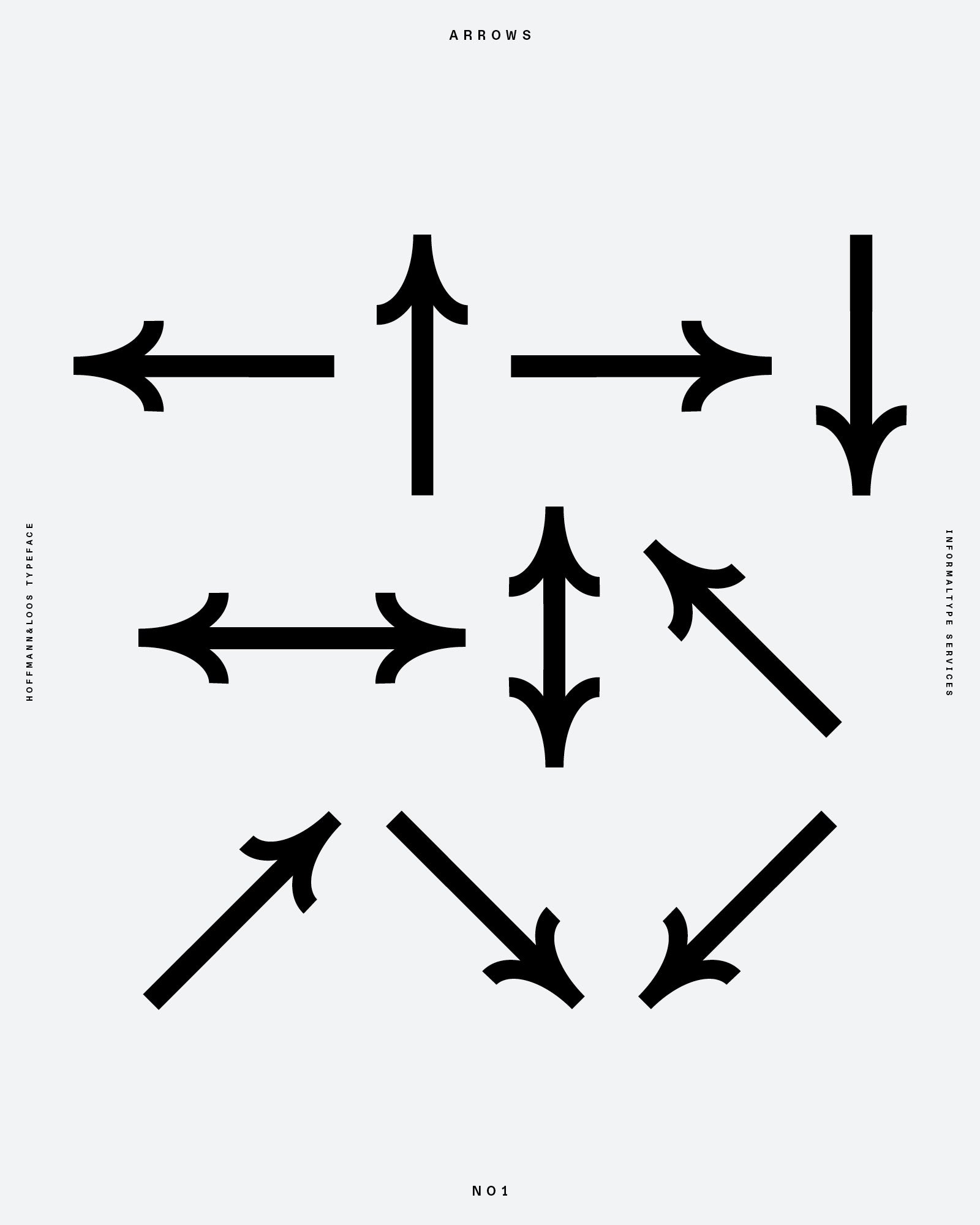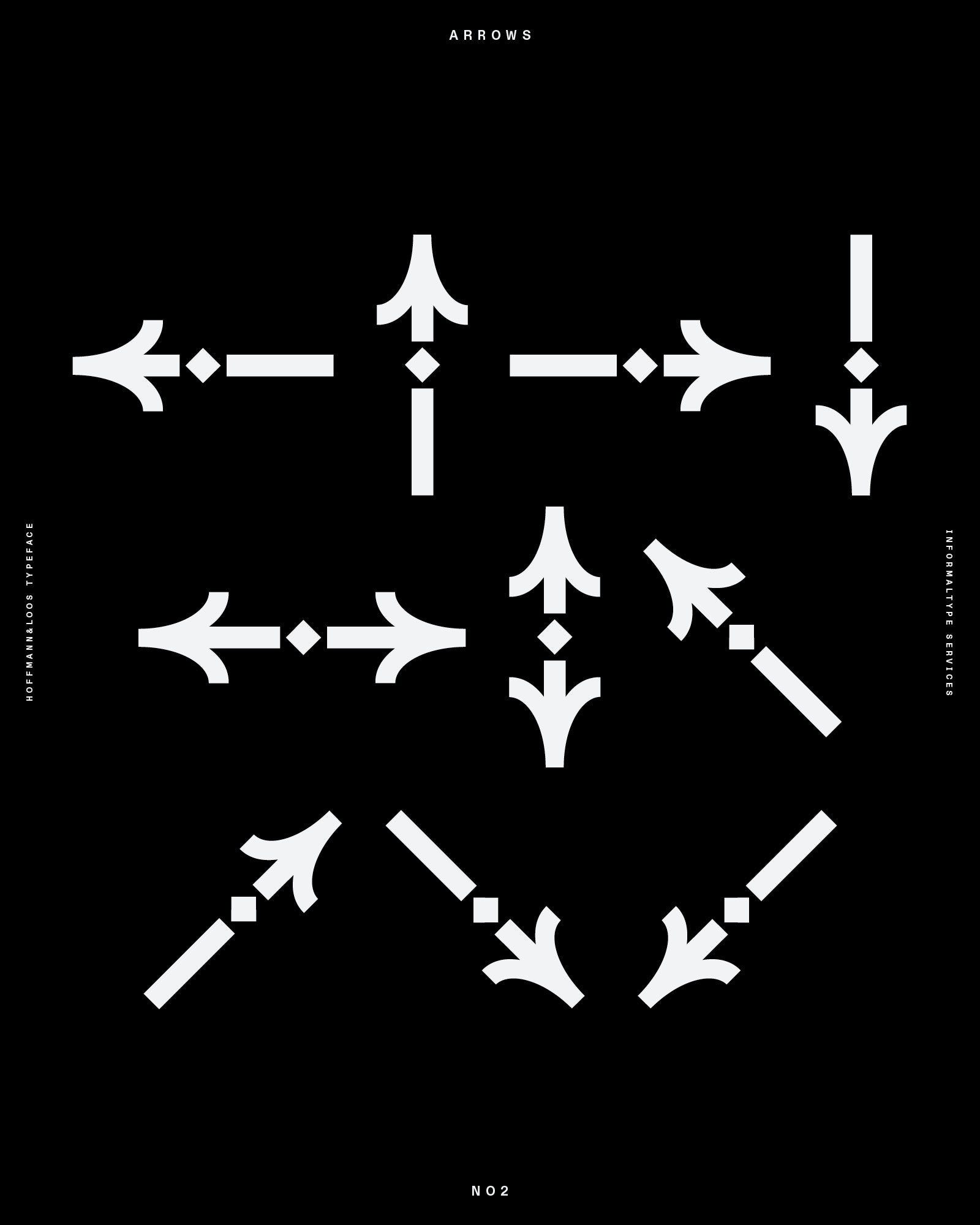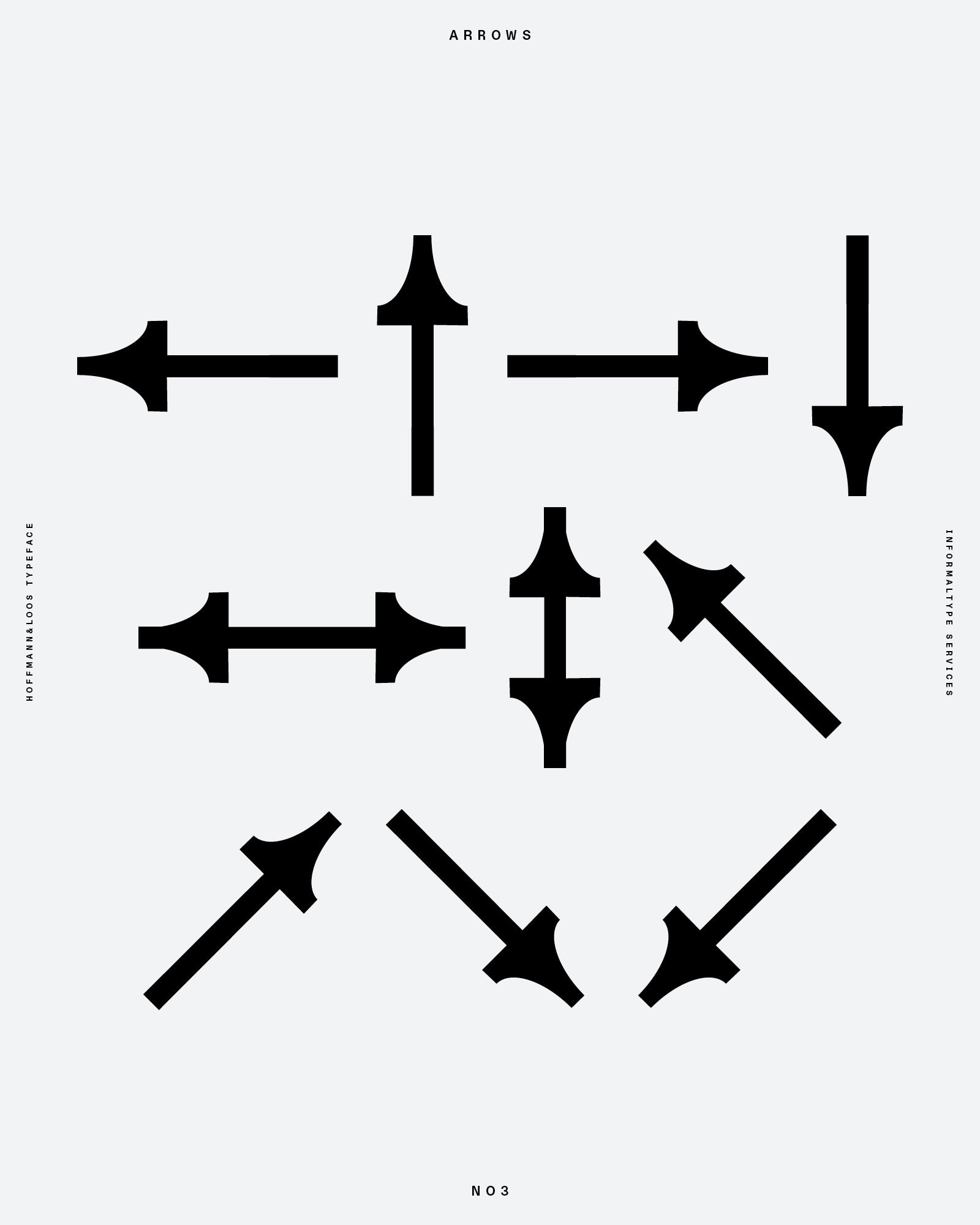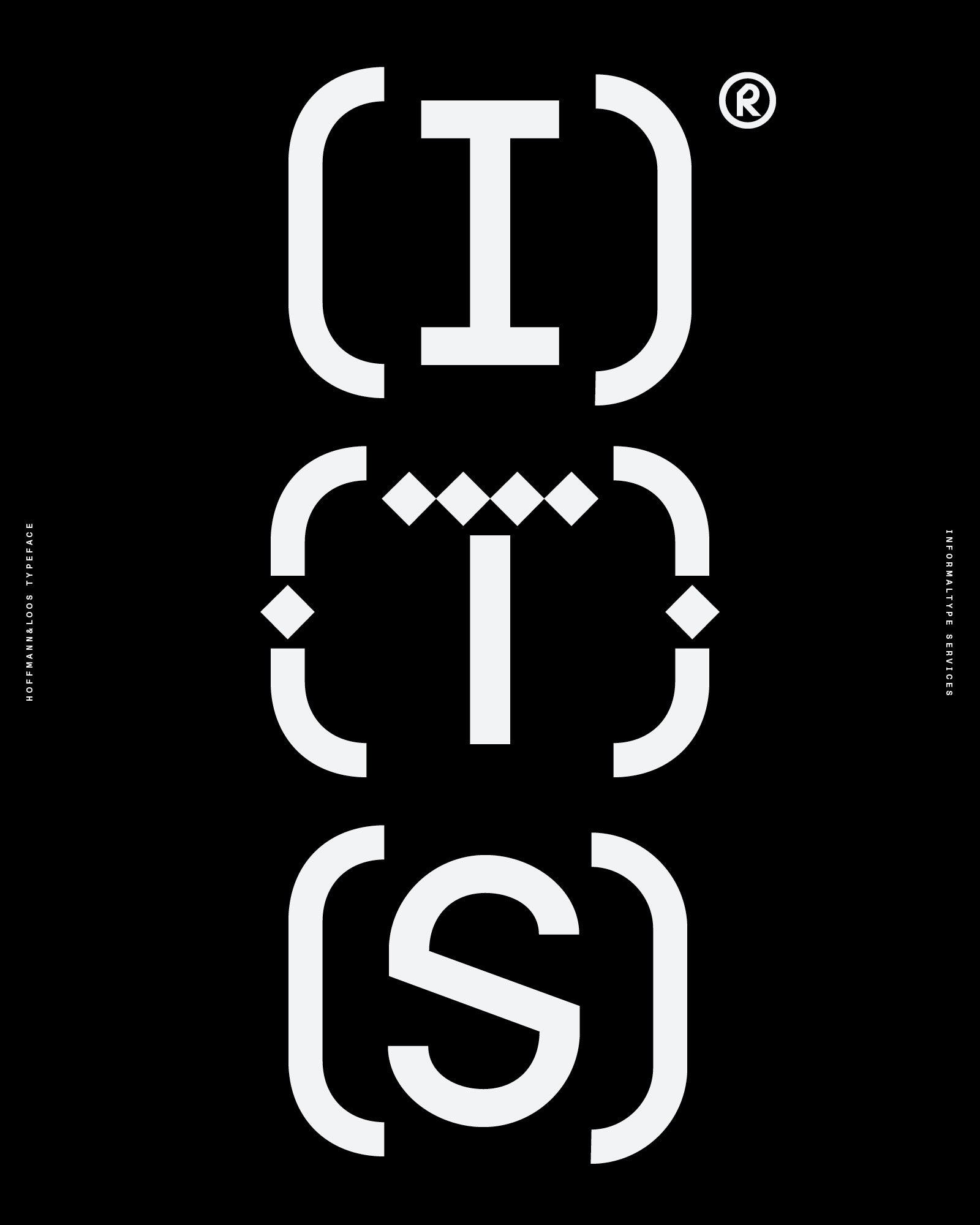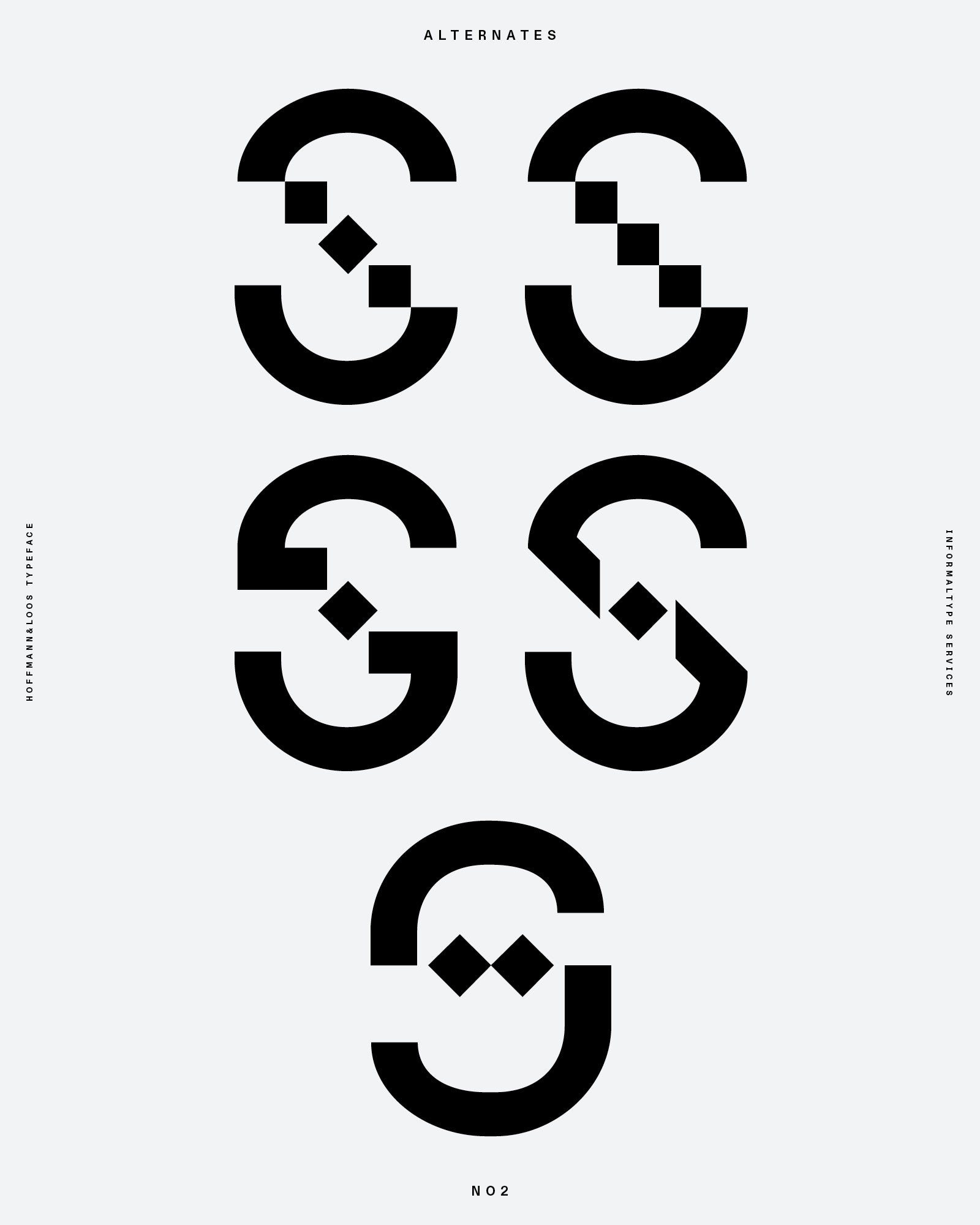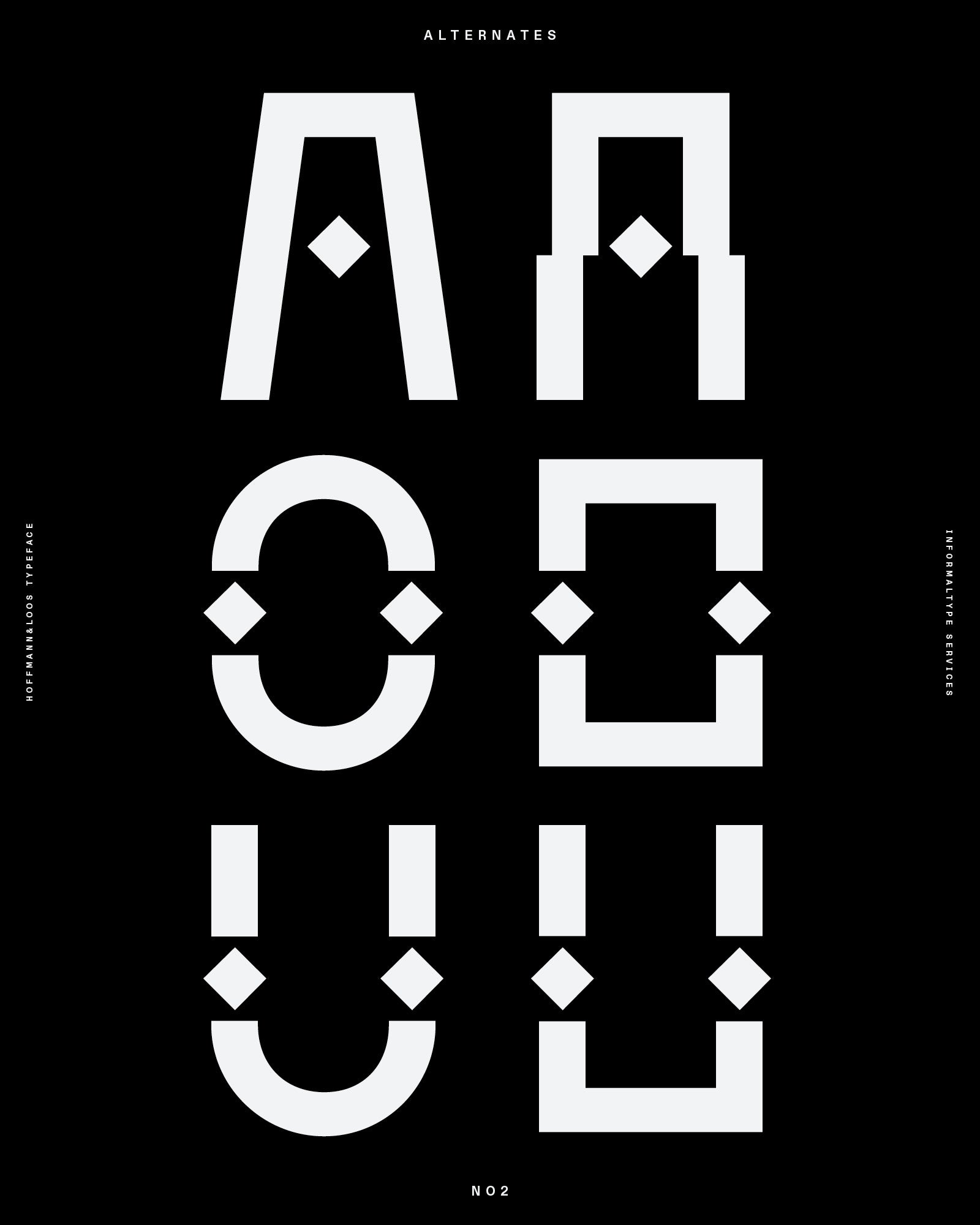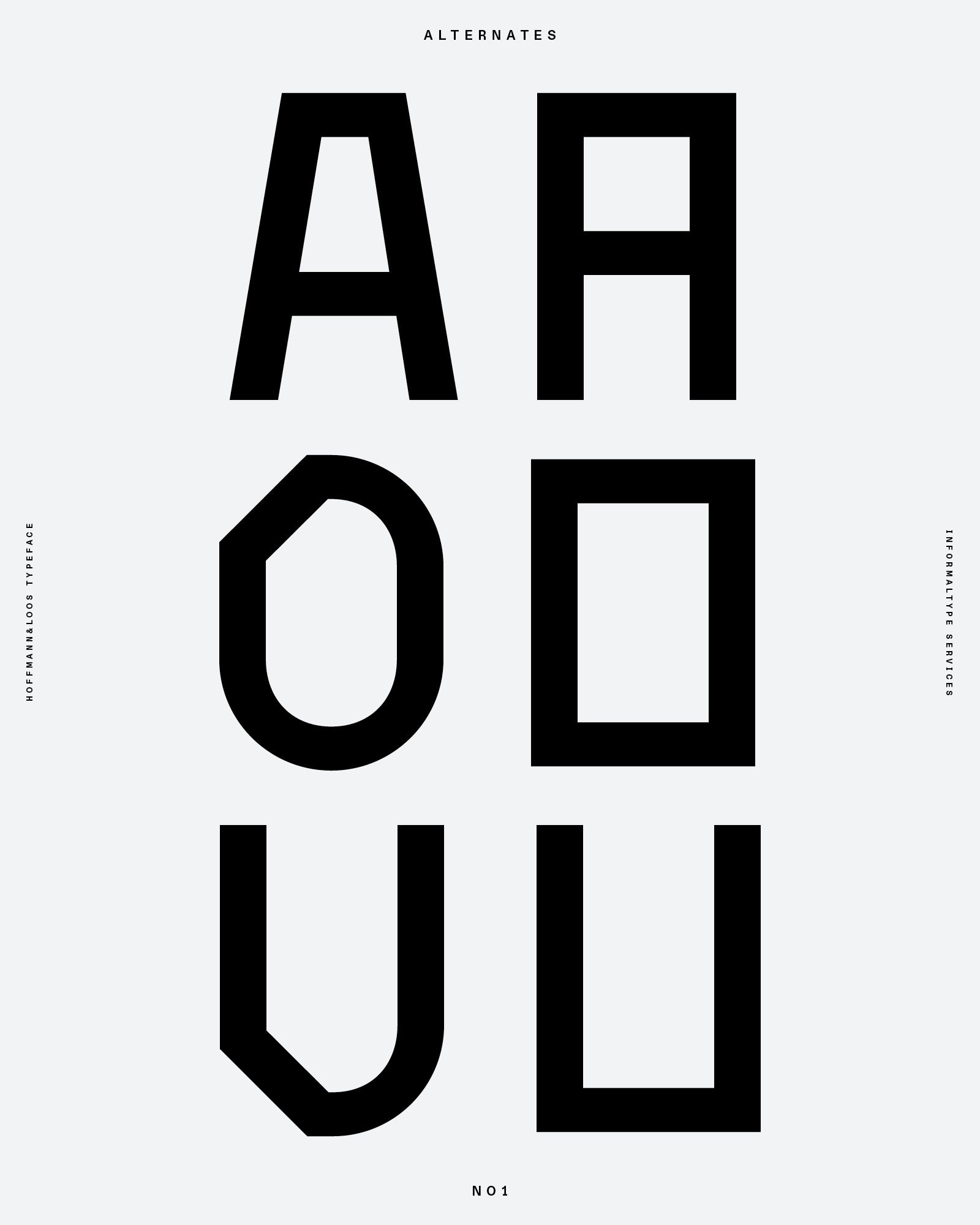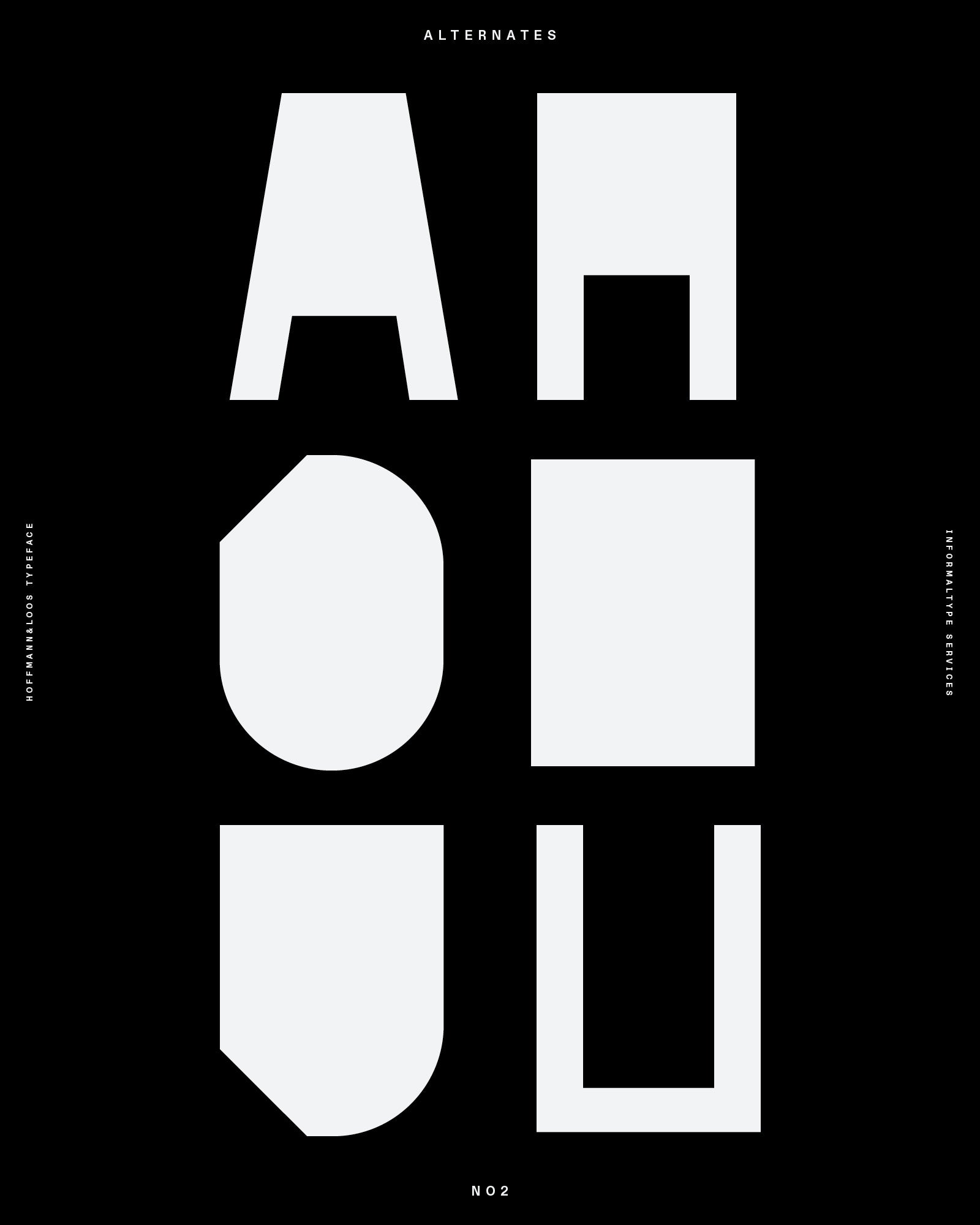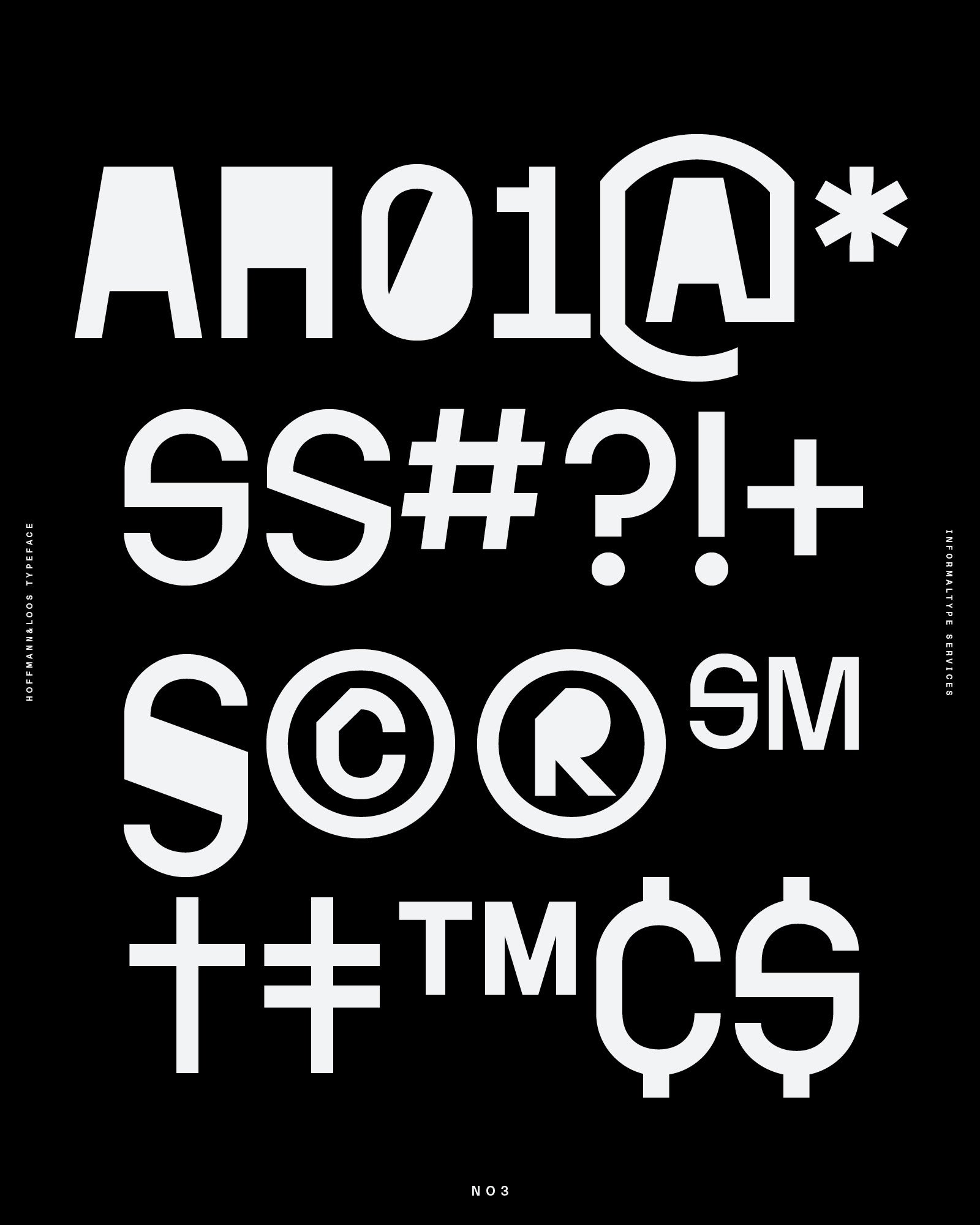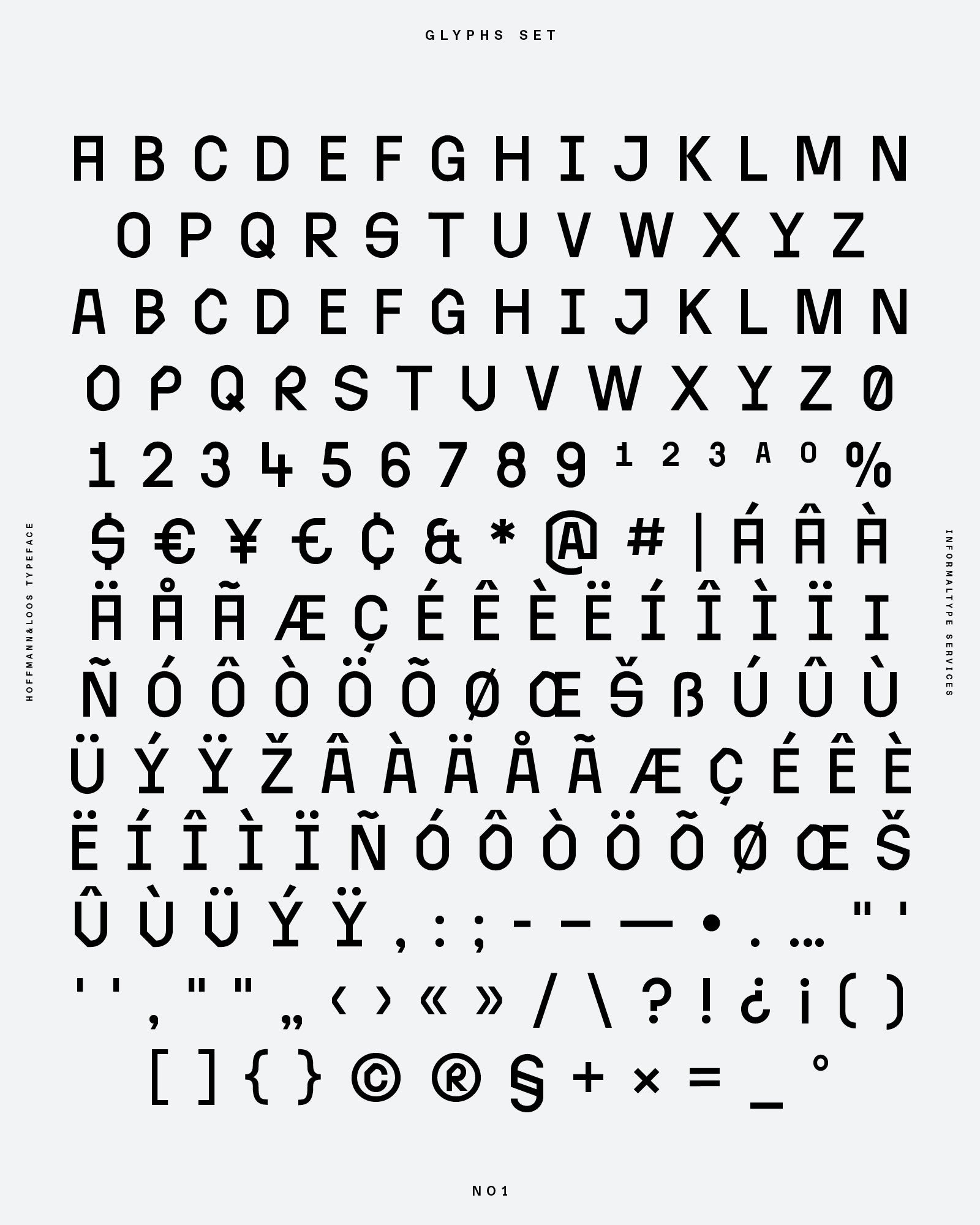
Hoffmann&Loos Typeface [3 Style]
Hoffmann&Loos is a display typeface shaped by the tension between reduction and ornament. Rooted in Viennese Modernism, the typeface brings together Adolf Loos’s radical simplicity and Josef Hoffmann’s decorative precision within a unified typographic system.
Balancing strict geometry with rhythmic detailing, Hoffmann&Loos moves between architectural clarity and expressive visual texture. The letterforms combine rigid structural proportions with ornamental interruptions, creating a visual language that feels both modernist and theatrical.
Designed primarily as a display typeface, Hoffmann&Loos is suited for posters, visual identities, cultural projects, editorial design, and bold contemporary communication.